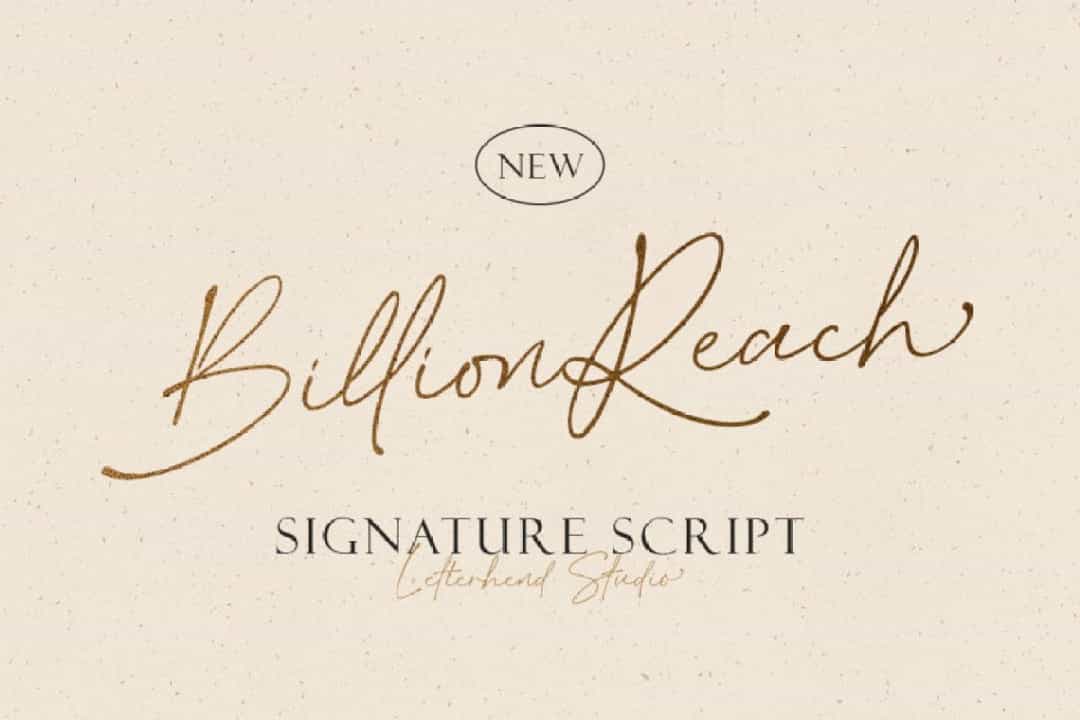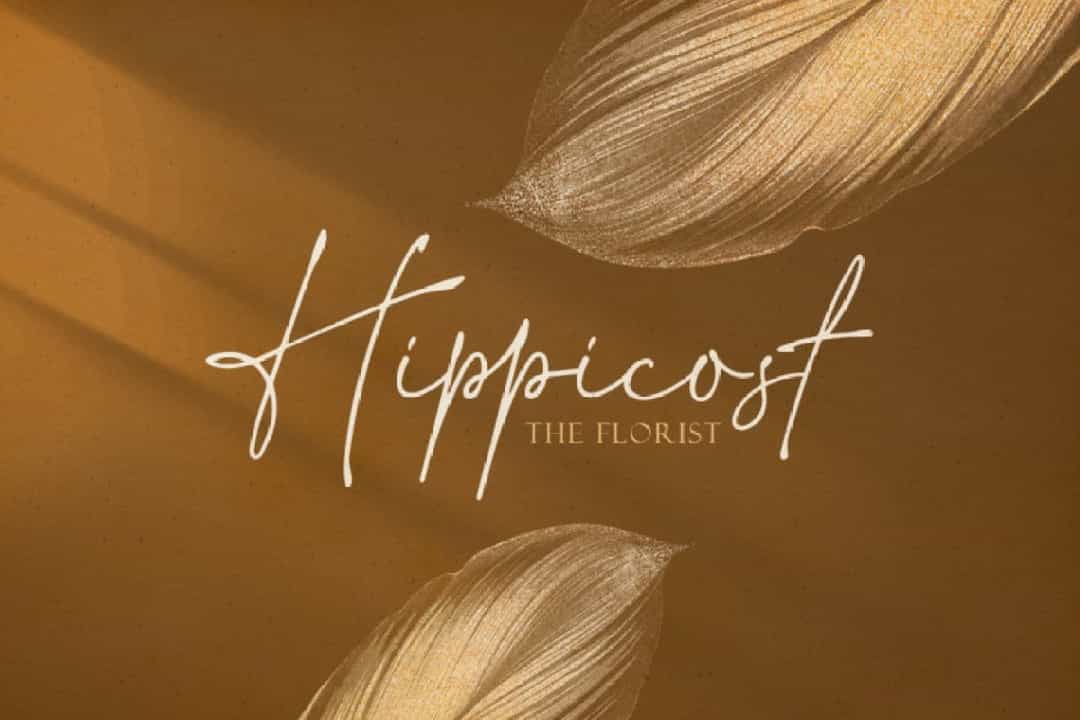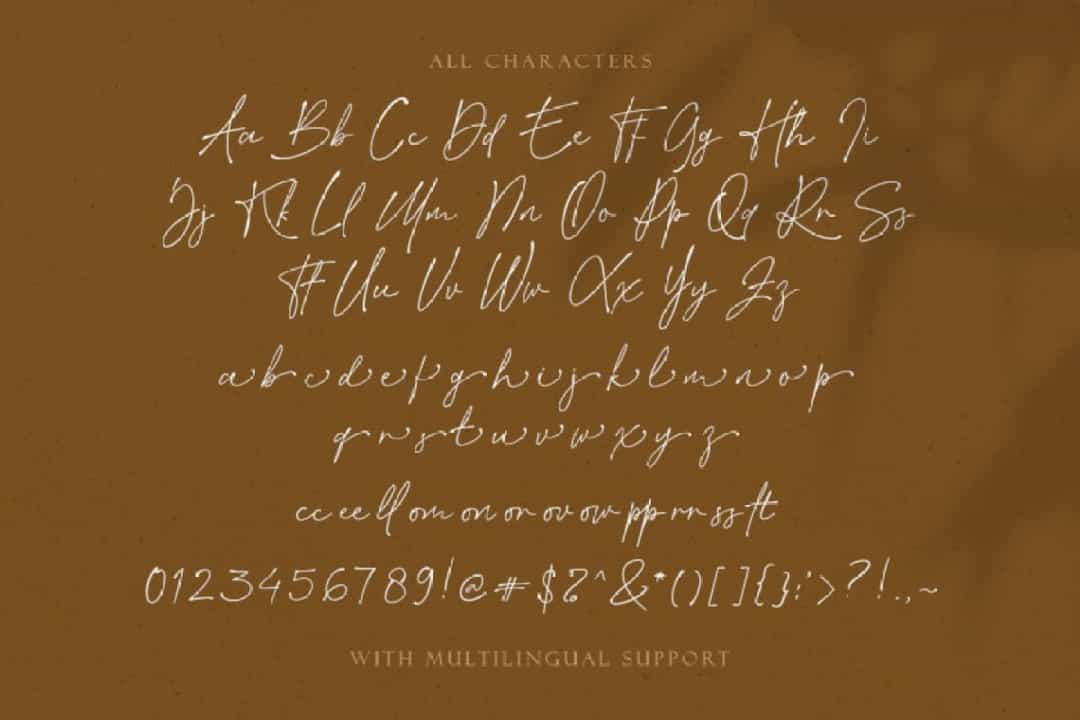
Billion Reach is a signature script font based on handwriting, it has significant stylistic variations and in some characters it has ligatures that give this font a feel like it has been written by hand. Intended for use in logos and other official documents, for example, invitations or labels for official events; magazines or books that advertise greeting/wedding cards, packages of fashion/makeup products, labeling of stationery books and labels, ads, etc.